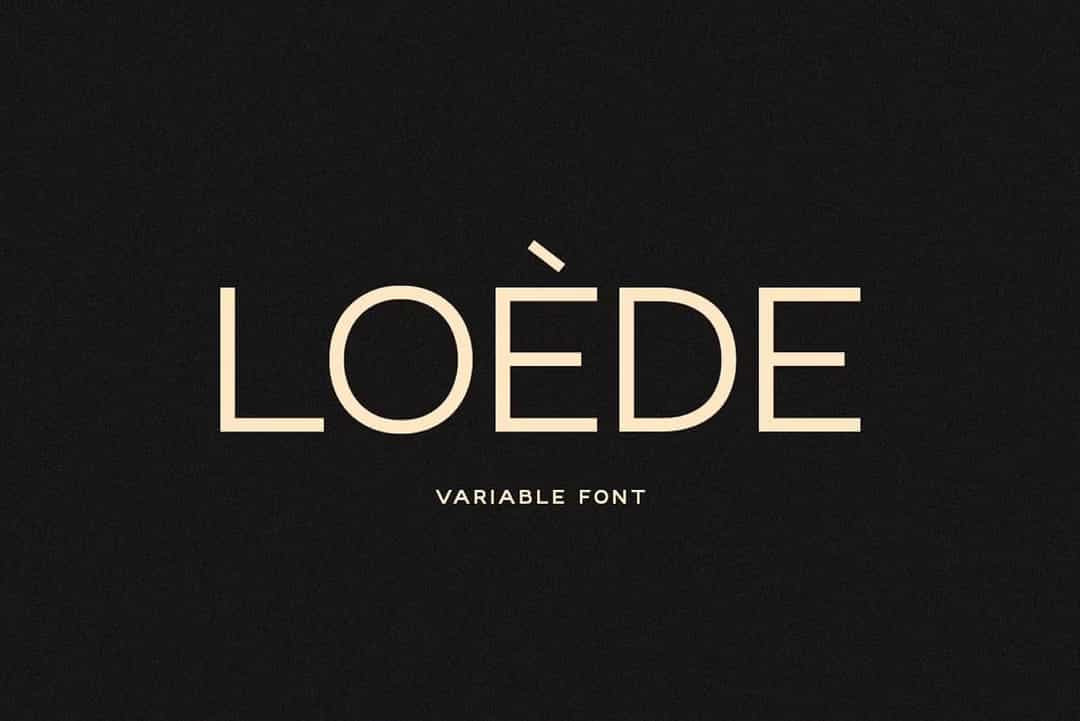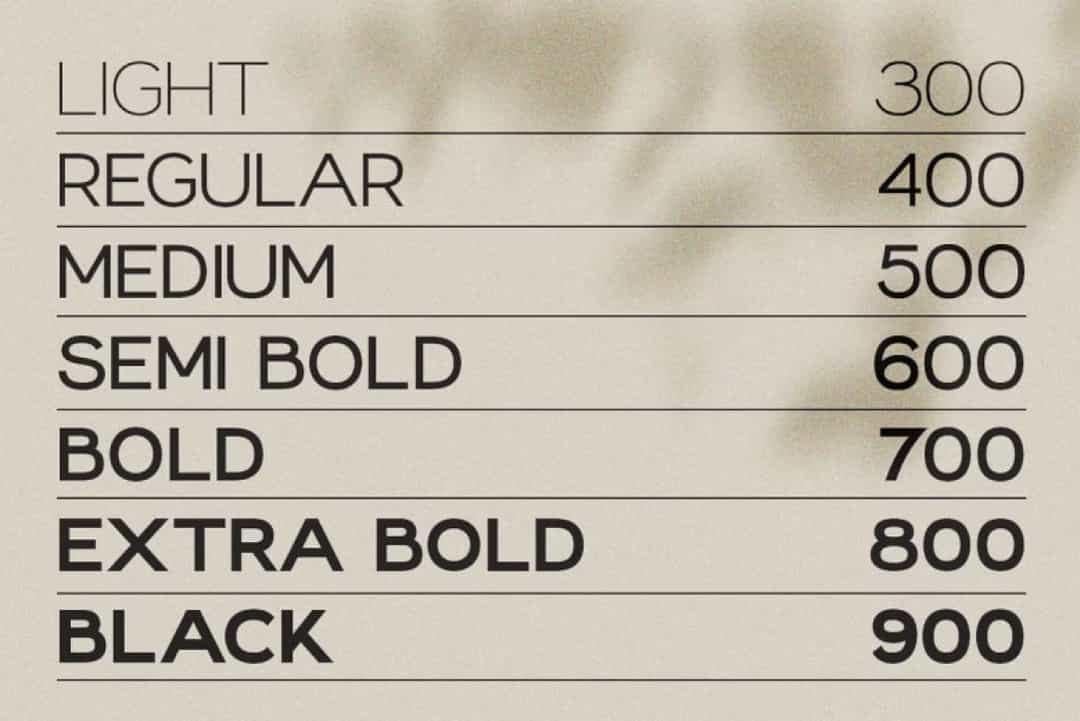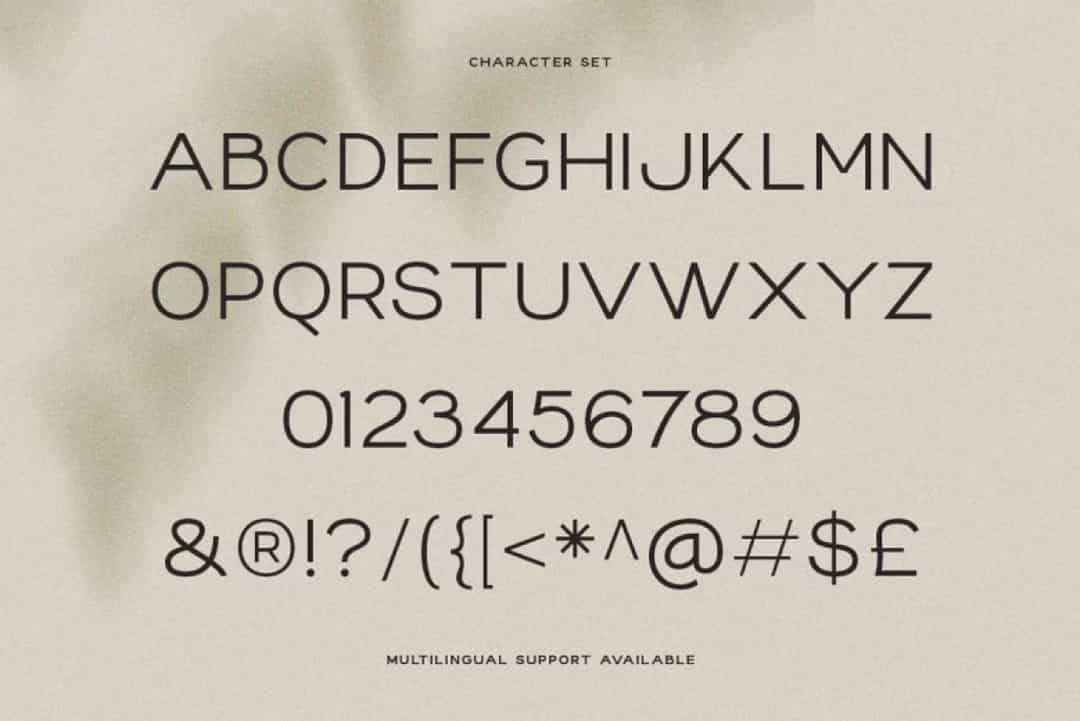
Loede is an elegant sans-serif font family designed with care to offer clear and well-balanced designs, boasting lighter to black weights for seamless integration in a range of projects ranging from logos, branding headers, and much more. Both variable and static fonts are available so your designs stand out quickly with Loede. Discover timeless elegance today.